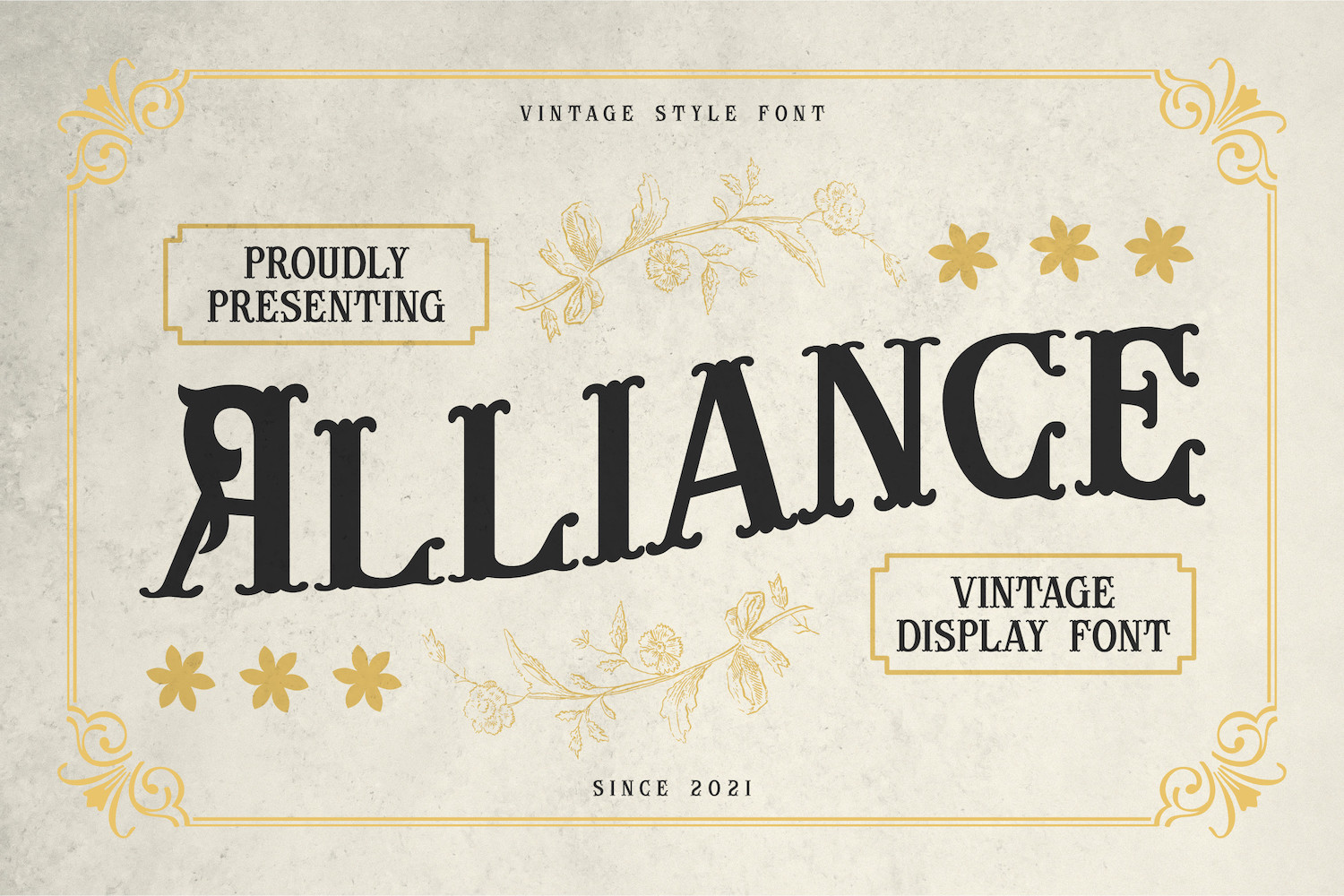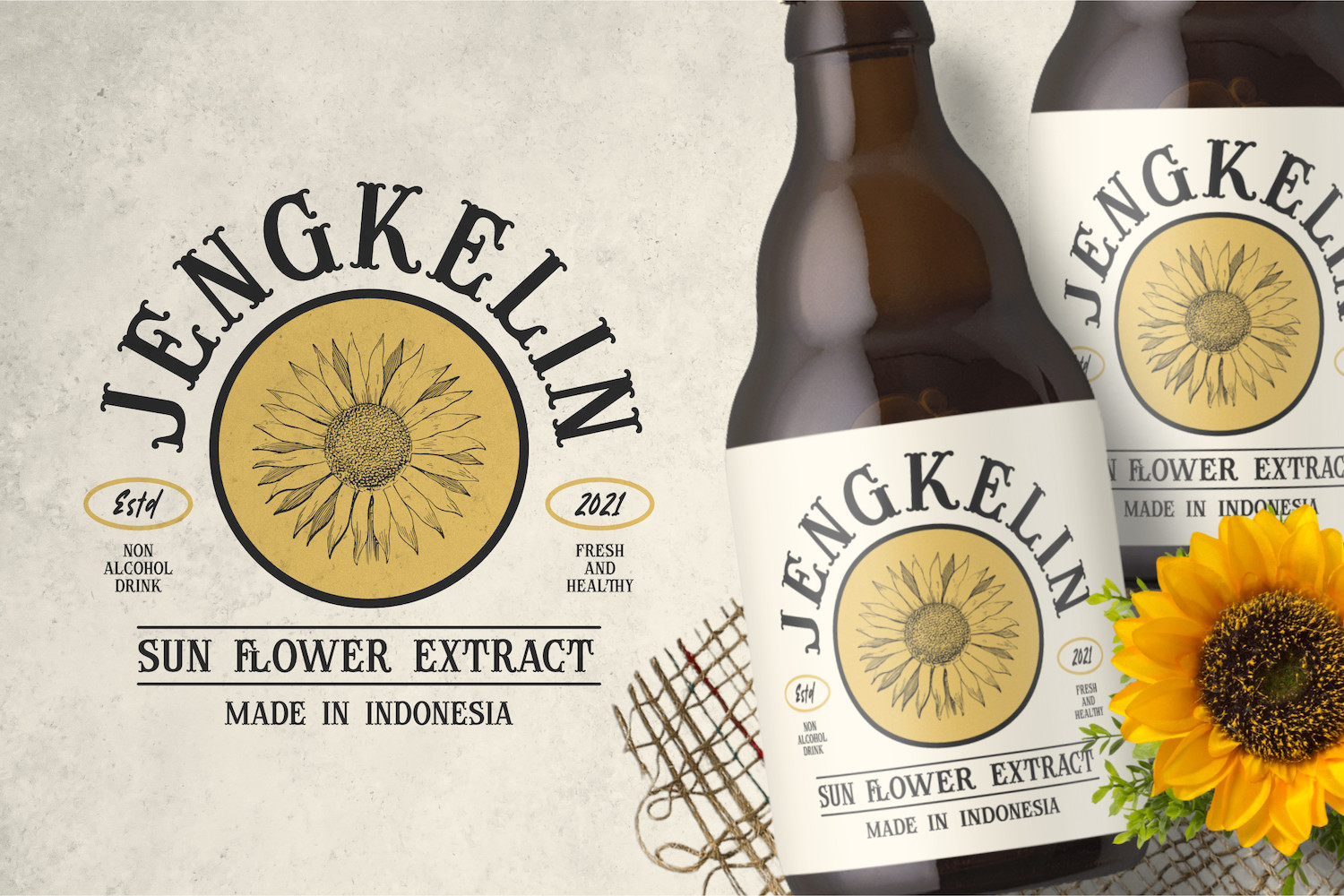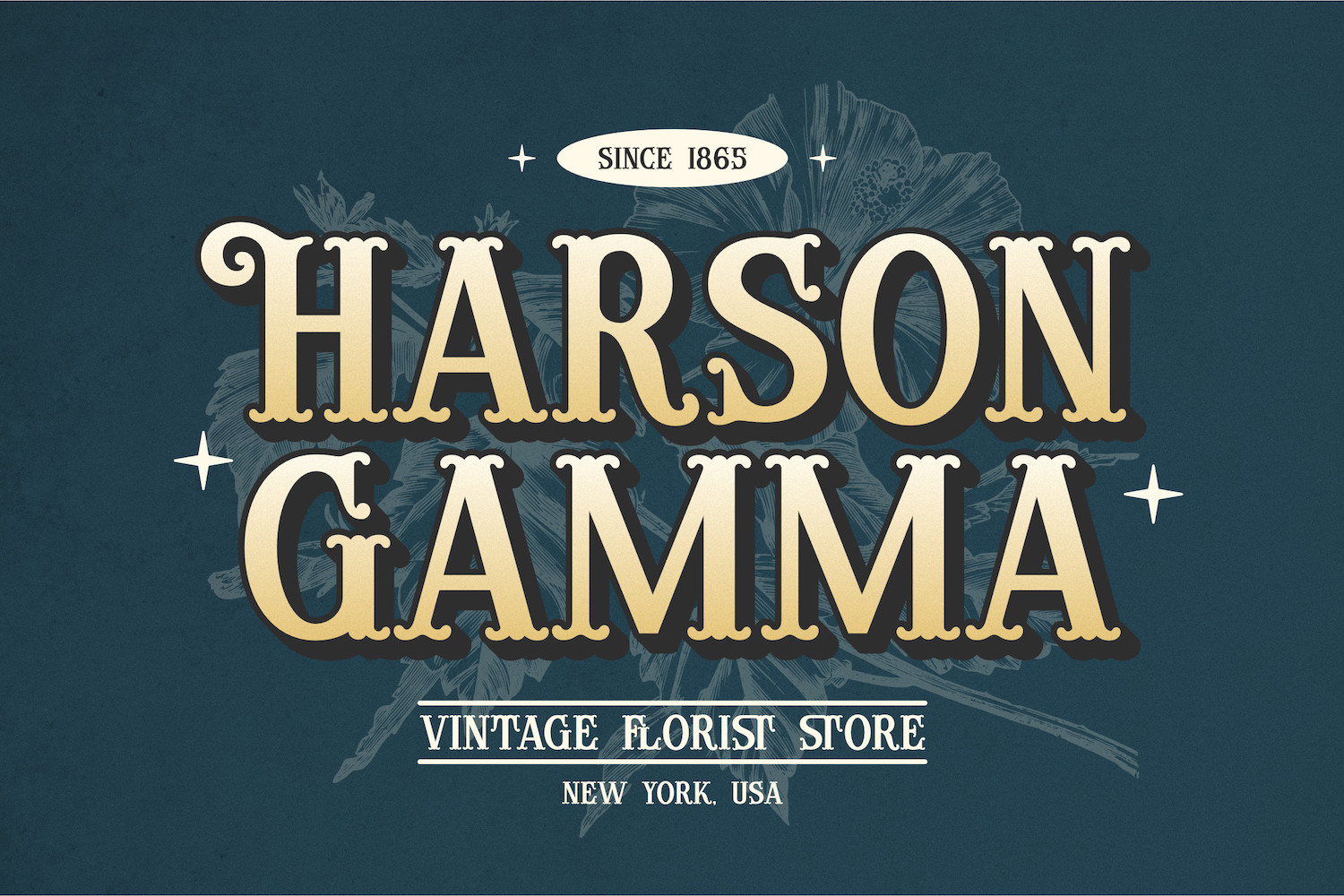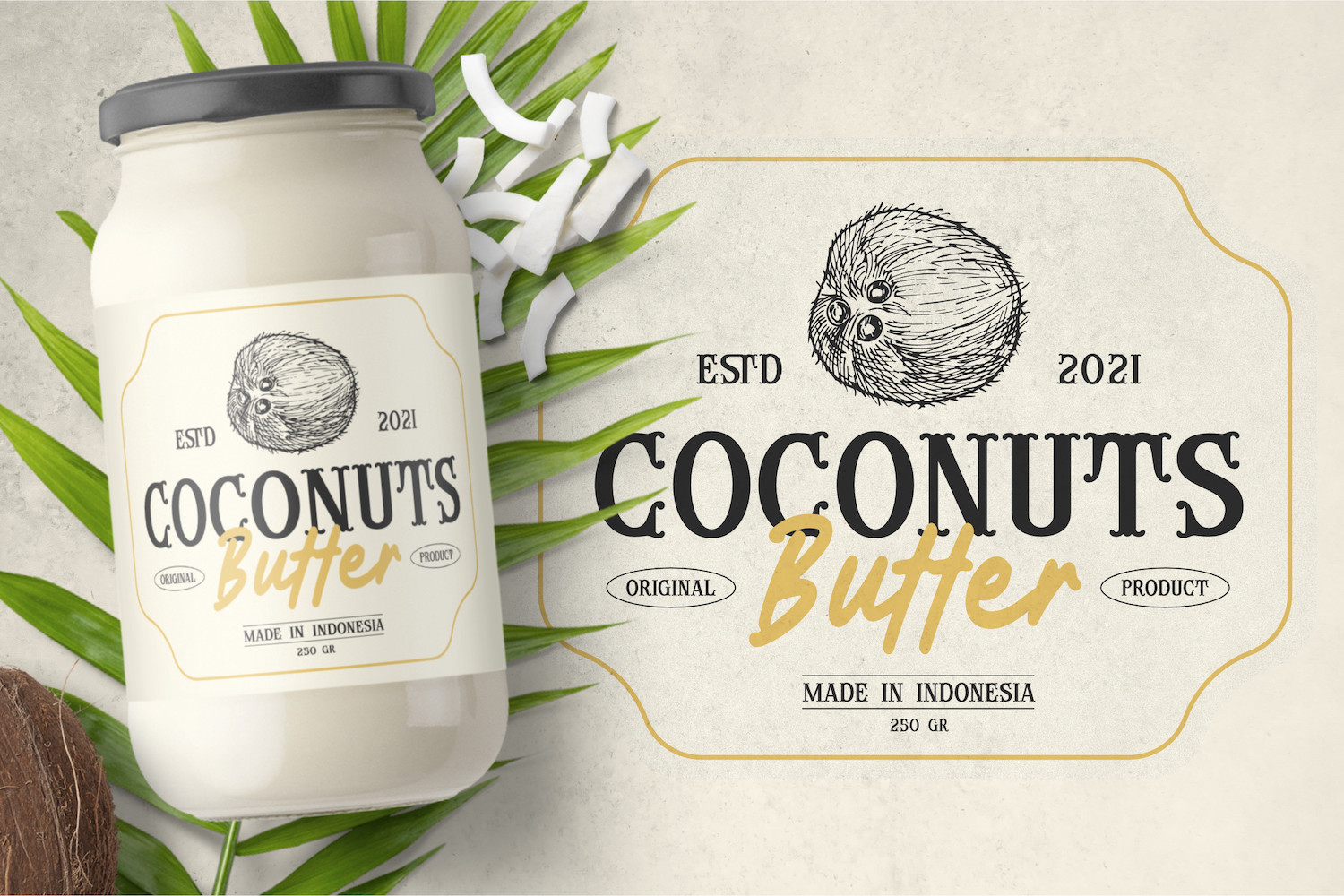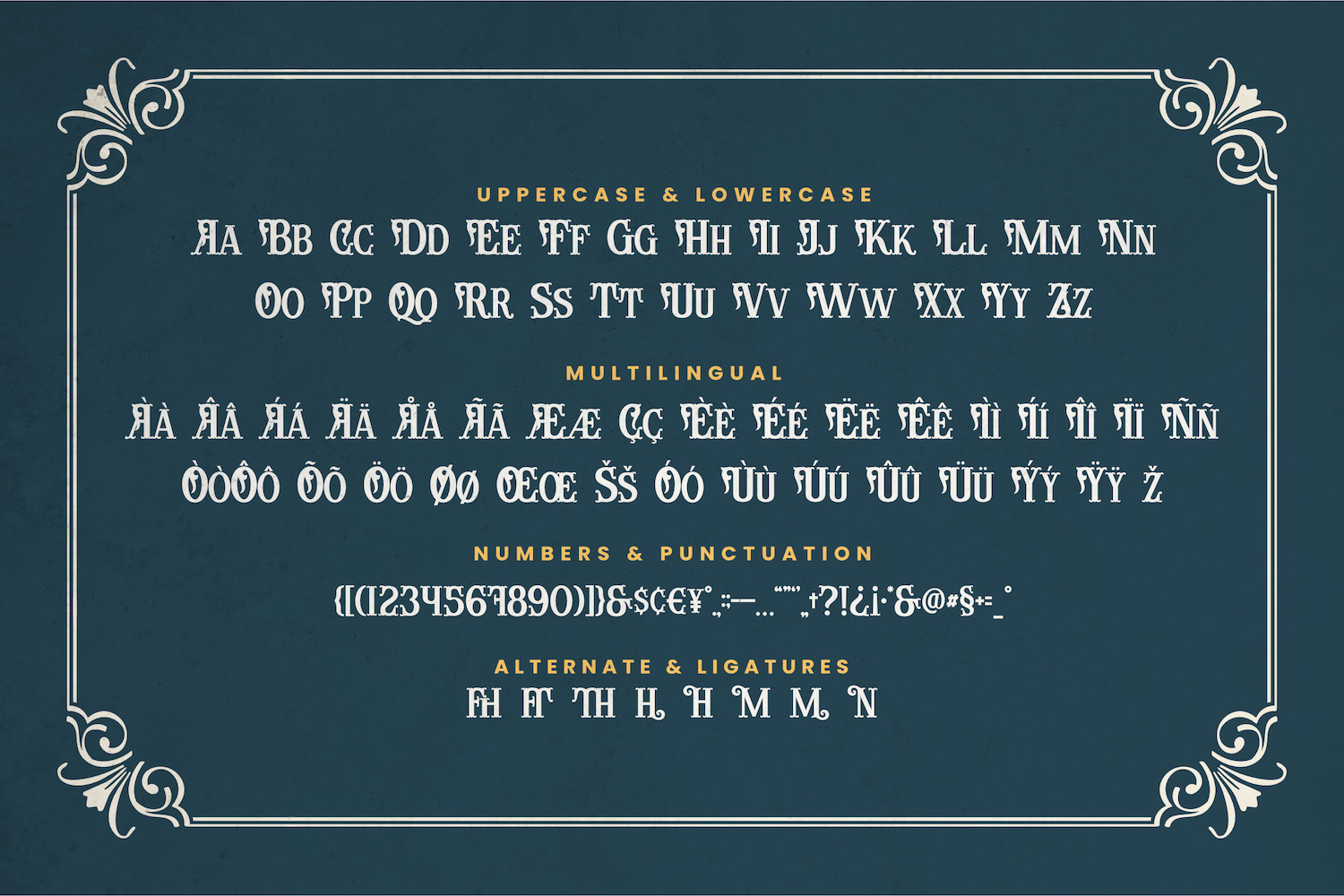
Alliance
Alliance is a refined vintage display font that blends bold serif forms with subtle ornamental touches, creating a charming and nostalgic aesthetic. With its high-contrast strokes, delicate flourishes, and distinctive alternates, Alliance evokes the elegance of classic branding and old-world packaging design, while maintaining clarity for modern applications.
Perfect for labels, packaging, logos, and editorial headlines, Alliance brings character and authenticity to any project. It includes uppercase, lowercase, multilingual characters, numbers, punctuation, and stylish ligatures. Making it highly versatile for various vintage and decorative design needs.